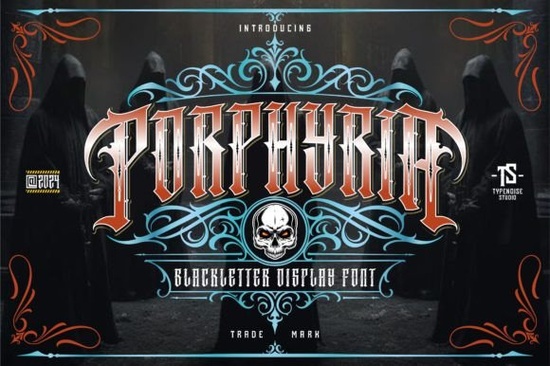
If you're looking for a bold, expressive blackletter font with serious attitude, the Porphyria Font is worth your attention. It's a typeface rooted in tattoo lettering, Chicano culture, and the raw energy of street art. Whether you're designing posters, t-shirts, logos, or signage, this font brings a gritty, hand-drawn feel that stands out from clean, corporate-style typefaces. If your creative work leans into urban aesthetics, this one deserves a spot in your font library.
What Makes This Font Different from Other Blackletter Typefaces?
Not all blackletter fonts are the same. Some lean heavily into medieval calligraphy. Others feel overly polished. Porphyria sits in a different lane. It takes the structural bones of blackletter lettering and filters them through the lens of tattoo art and Chicano-style graffiti. The result is something that feels both classic and street-level authentic.
The letterforms have strong vertical strokes with sharp, angular details. There's a rhythm to how the characters connect that echoes hand-painted signs and old-school tattoo flash sheets. If you've ever admired the lettering on lowrider murals or vintage barbershop windows, you'll recognize the DNA here.
Who Is This Font Designed For?
This typeface works well for a pretty wide range of creators:
- Tattoo artists looking for digital lettering references or flash sheet layouts
- Print-on-demand sellers designing t-shirts, hoodies, and streetwear graphics
- Poster and flyer designers working on music events, gallery shows, or urban-themed projects
- Logo designers who need bold, memorable typography for brands with an edge
- Small business owners in industries like barbershops, streetwear brands, or skate shops
- Crafters and hobbyists making custom signs, stickers, or apparel mockups
Basically, if your creative work benefits from strong, eye-catching type that carries cultural weight, this font fits right in. You can check out the full details on the Porphyria font page to see the full character set and usage examples.
What Projects Work Best with This Style of Lettering?
Blackletter fonts with tattoo and street art influences tend to shine in specific types of projects. Here are some ideas where this kind of typeface does its best work:
- T-shirt graphics Pair the font with simple illustrations or let it stand alone as a bold chest print.
- Event posters Especially for concerts, art shows, or anything with an underground or alternative vibe.
- Logo design Great for brands that want to signal toughness, authenticity, or counterculture roots.
- Social media content Quote posts, story backgrounds, or promotional graphics with an urban aesthetic.
- Signage and banners Works especially well for shop signs, menu boards, or display headers.
- Tattoo flash sheets and references A practical tool for artists who work digitally before going to ink.
How Does It Compare to Other Blackletter Fonts?
The key difference with Porphyria is its cultural influence. It doesn't just borrow blackletter structure it lives in the space between tattoo parlor and street mural. That's a specific vibe, and if it matches your project, it's the right call.
Tips for Getting the Most Out of This Typeface
A few practical notes if you decide to use it:
- Use it at larger sizes. Blackletter fonts with this much detail can get muddy at small sizes. Headlines and logos are its sweet spot.
- Keep your backgrounds simple. The lettering already has a lot of visual energy, so busy backgrounds can compete with it.
- Pair it with a clean sans-serif. For body text or secondary info, a simple sans-serif creates a nice contrast without clashing.
- Experiment with color. Traditional black on white works, but gold on dark backgrounds or red on cream can really bring out the character of the strokes.